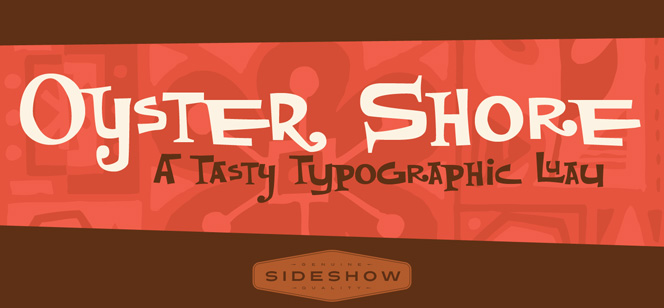
Oyster Shore font
Oyster Shore font – a funky, friendly and freestyle typeface released for sale by Sideshow Type foundry. Great to have this one if you want to touch the spirit of sea weaves, surfing, sun and summer. A little naive, a little bouncing, Oyster Shore is a font that really makes you think positive, a font that opens your creativity for vivid colors, over-saturated inks, playful patterns, blue skies, fun and love. Perfect for packaging, posters and t-shirts, Oyster is also excellent for attractive headlines, album covers and even logos. Try the extra OpenType features and you’ll find out how easy it is to customize your type using ligatures and alternates. All in all Oyster Shore is a good example of how ordinary functionality goes hand in hand with creativity and originality, carrying the spirit of friendliness and fun.